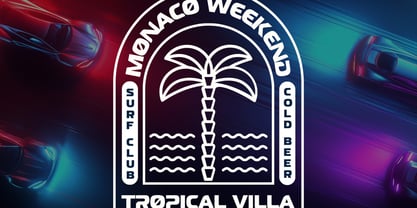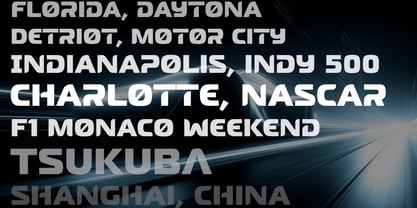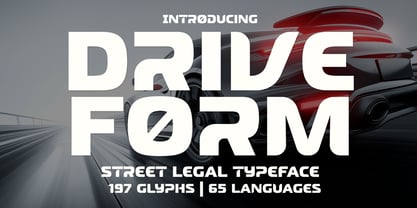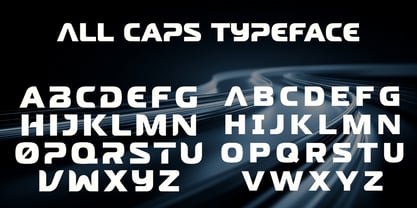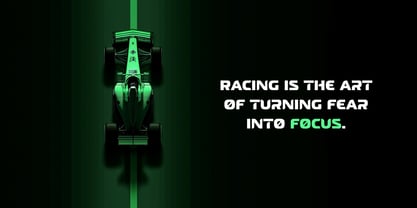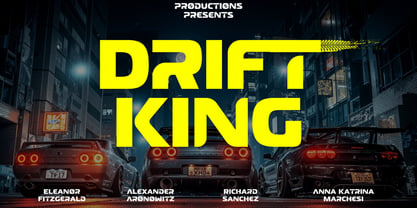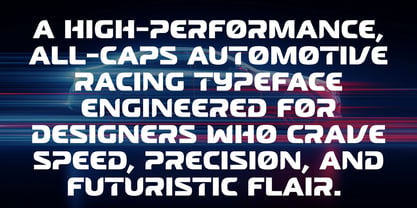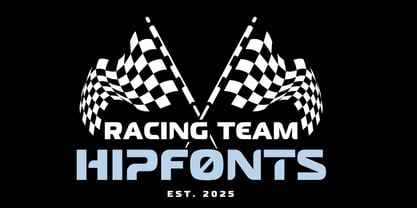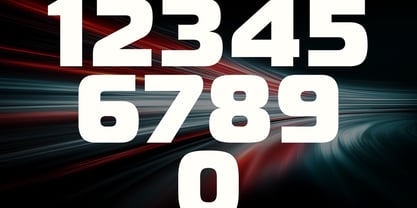
Driveform
von Hipfonts
Die Schriftfamilie Driveform wurde von Igor Ovsyannykov entworfen und von Hipfonts veröffentlicht. Driveform enthält 1 Stile. Mehr über diese Familie
Drive Form is a high-performance, all-caps automotive racing typeface engineered for designers who crave speed, precision, and futuristic flair. Sleek, minimal, and modern—with a subtle dash of sci-fi energy—this font captures the spirit of drift culture and motorsport adrenaline. Every letter is crafted with aerodynamic intent. The uppercase and lowercase variants each offer unique shapes, giving you flexible options to build striking, custom-looking typography effortlessly. Sharp angles, smooth curves, and dynamic proportions bring instant horsepower to any design. From drifting in the mountains of Japan to high-octane race tracks, Drive Form embodies speed, angle, and showmanship—perfect for brands that want to move fast and look bold.